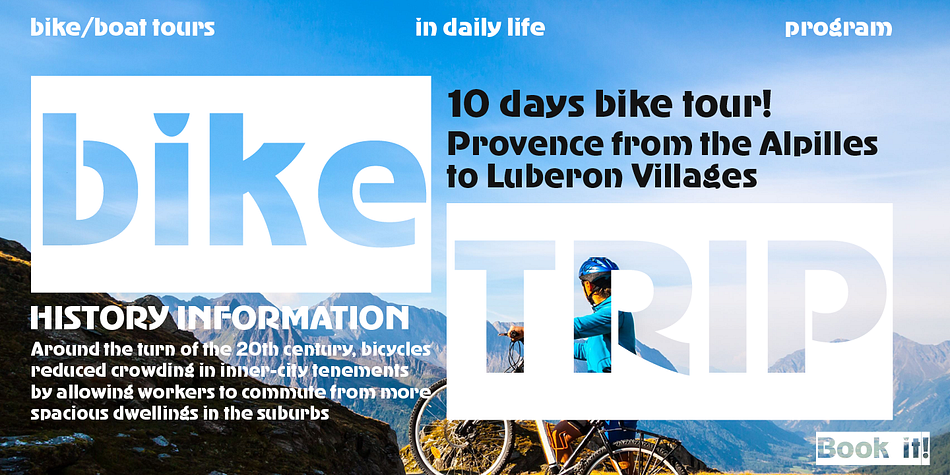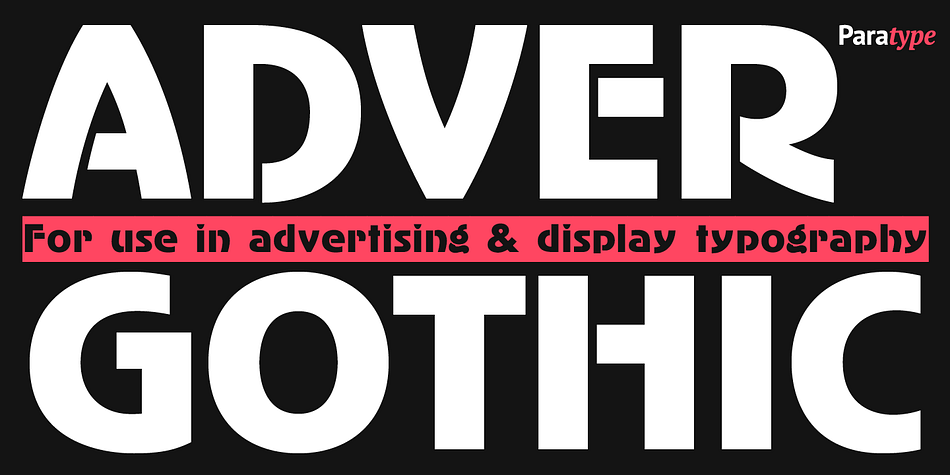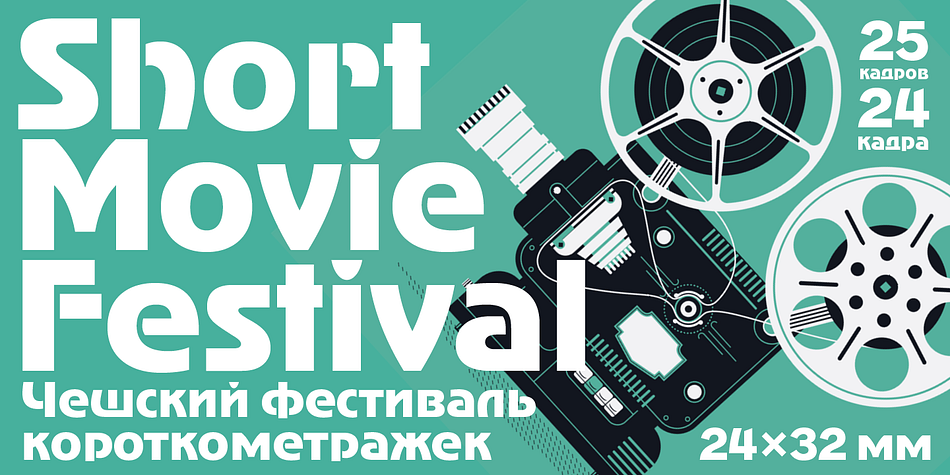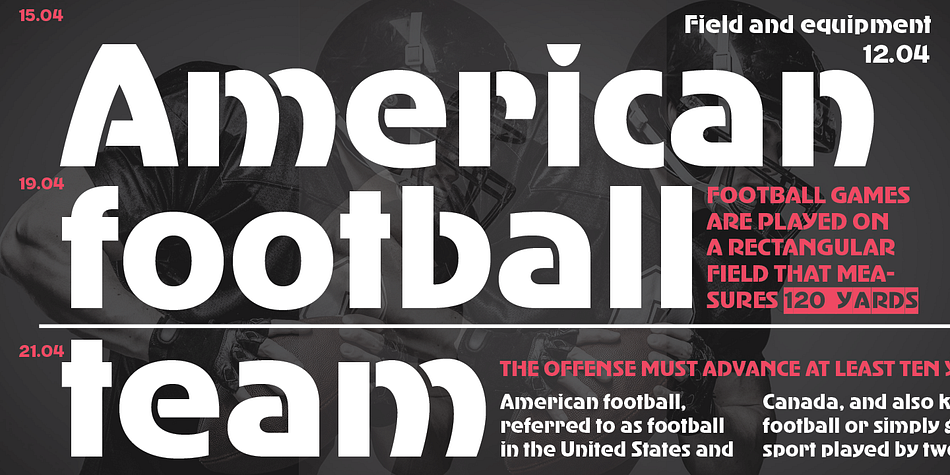
Designed by Alexander Tarbeev and Vladimir Yefimov, AdverGothic is a display, display sans and art nouveau font family. This typeface has three styles and was published by ParaType.
Designed at ParaType (ParaGraph) in 1989 by Vladimir Yefimov. Based on the Advertisers Gothic, 1917 by Robert Wiebking, inspired by Art Nouveau lettering. Two decorative styles added in 1993 and 1996 by Alexander Tarbeev. For use in advertising and display typography.